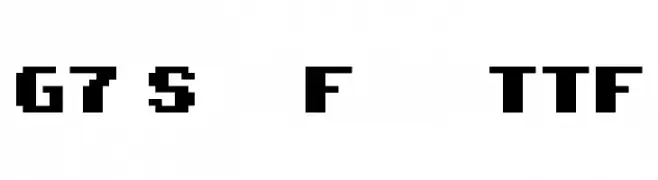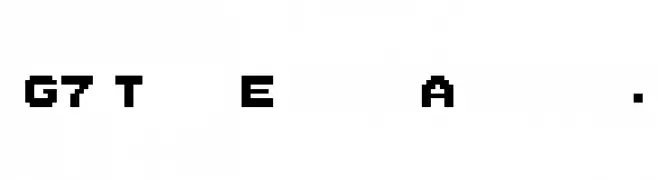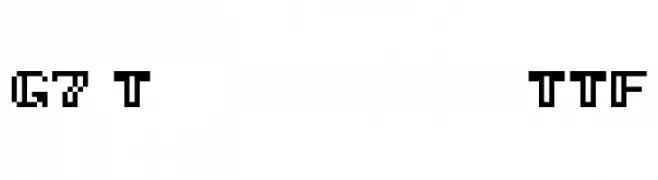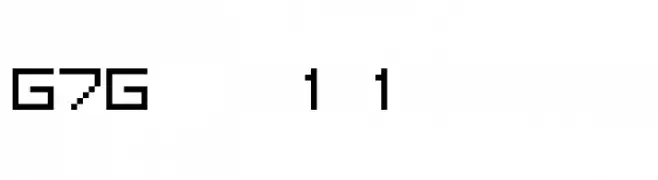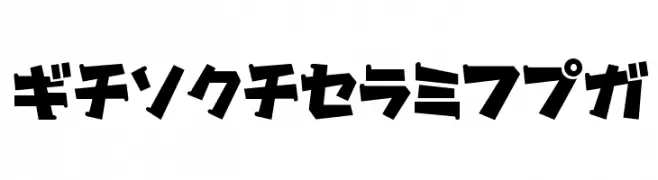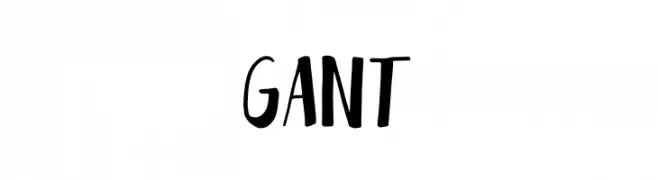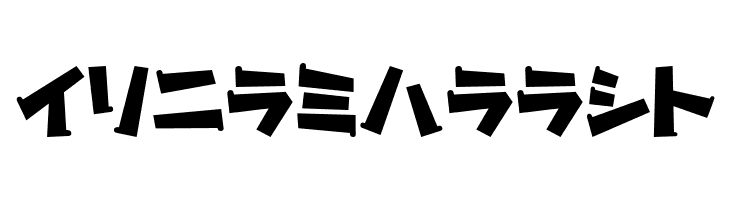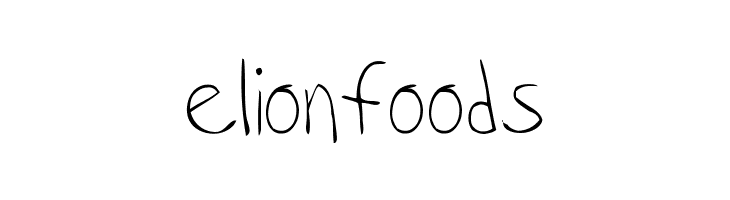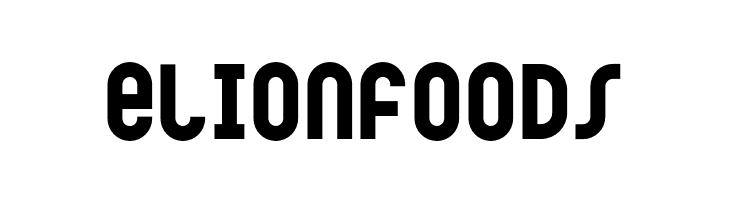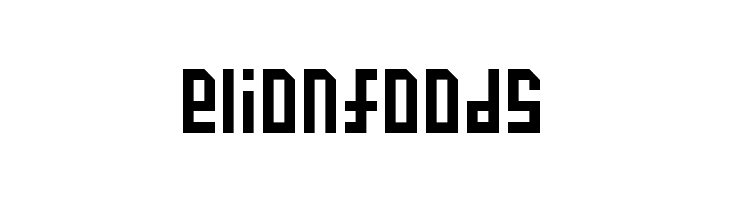
• G7 Star Force TTF
( Genshichi Yasui - www.jttk.zaq.ne.jp/babwp701/hpfont/font.html )
A bold, pixelated font with a retro digital style.
• G7 Taito Elevator Action etc.
( Genshichi Yasui - www.jttk.zaq.ne.jp/babwp701/hpfont/font.html )
A bold, pixelated font with a retro arcade game style.
• G7 Twinbee for arcade TTF
( Genshichi Yasui - www.jttk.zaq.ne.jp/babwp701/hpfont/font.html )
A pixelated, retro font inspired by classic arcade games.
• G7_1943 TTF
( Genshichi Yasui - www.jttk.zaq.ne.jp/babwp701/hpfont/font.html )
A bold, pixelated font with a retro digital style.
• G7Gradius1[1 byte font]
( Genshichi Yasui - www.jttk.zaq.ne.jp/babwp701/hpfont/font.html )
A pixelated, retro font with a digital, blocky style.
• Gabby
A playful, casual handwritten font with irregular, whimsical letterforms.
• Gachapon2KT
( Fonts by Maniackers Design - www.mksd.jp OFF SITE )
A bold, angular font with a playful and dynamic style.
• Gant
A bold, playful handwritten font with dynamic strokes and a whimsical style.
• Garage
( Digital Agent Factory - web.archive.org/web/20030621173551/daf.to/font.html )
A bold, geometric font with a modern, industrial style.
• Garaje53Unicase-Black
( Fonts by http://www.256tm.com/en/special_offers.htm )
A bold, unicase font with a strong, modern presence.